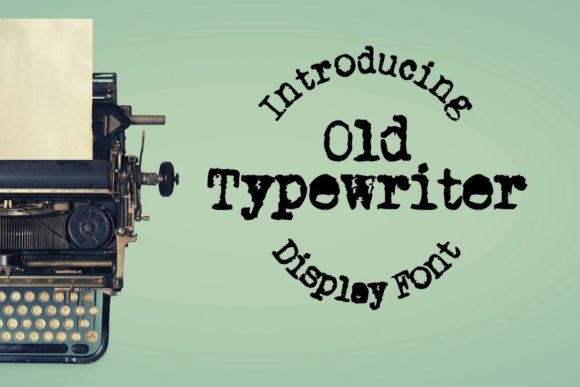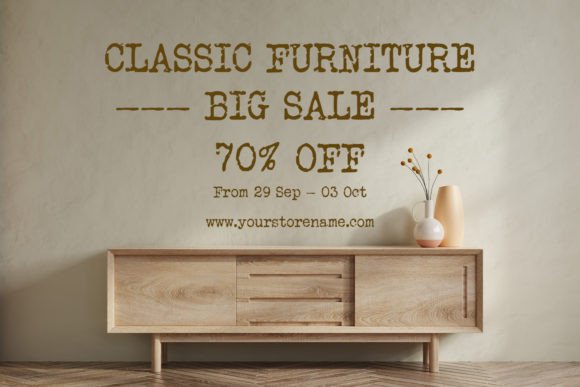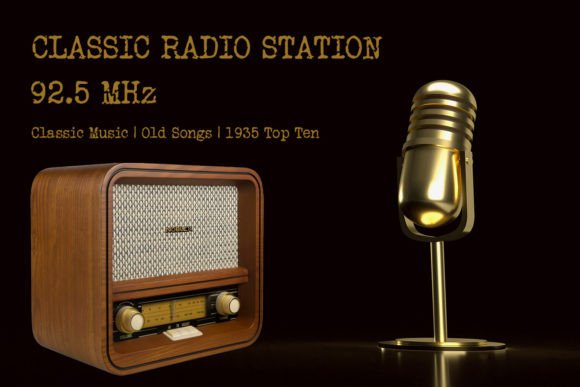
Old Typewriter Font
About the Old Typewriter Font
The Old Typewriter Font is here to transform your projects with its distinctive character and style. Old Typewriter is a cute, thematic typewriter font that is reminiscent of the old mechanical type. This slab serif is a great way to give your projects a retro or forensics style.
You can use it in various creations like newspapers, headlines, posters, magazines, t-shirt printing, wall art, and more.
Its strong, slightly uneven strokes make it ideal for headlines, posters, and short impactful text on packaging or branding materials where a vintage or slightly gritty aesthetic is desired. Avoid using Old Typewriter for body text or long paragraphs; its unique character becomes visually tiring at smaller sizes and in extended use.
The font’s personality is definitively bold and retro, lending itself to projects with a vintage or investigative feel. Consider pairing it with a clean sans-serif like Helvetica for a modern contrast, or a more delicate script font like Playfair Display for a sophisticated, vintage-inspired pairing. A geometric sans-serif could also work well, providing a modern counterpoint to its rugged charm.
For brands aiming for a nostalgic yet authoritative voice, Old Typewriter is a strong choice. Think vintage clothing lines, detective agencies, or craft breweries seeking a retro feel. Using it sparingly, as an accent, will ensure its unique character shines without overwhelming the design.
Old Typewriter Font Usage Examples
Old Typewriter Font Example